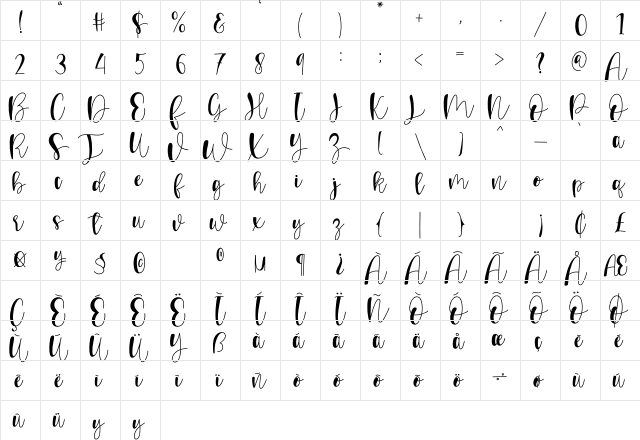
Orlline Regular
Design Context for Orlline Typeface
Orlline is a composed and adaptable typeface that performs quietly and consistently across a wide range of design contexts.